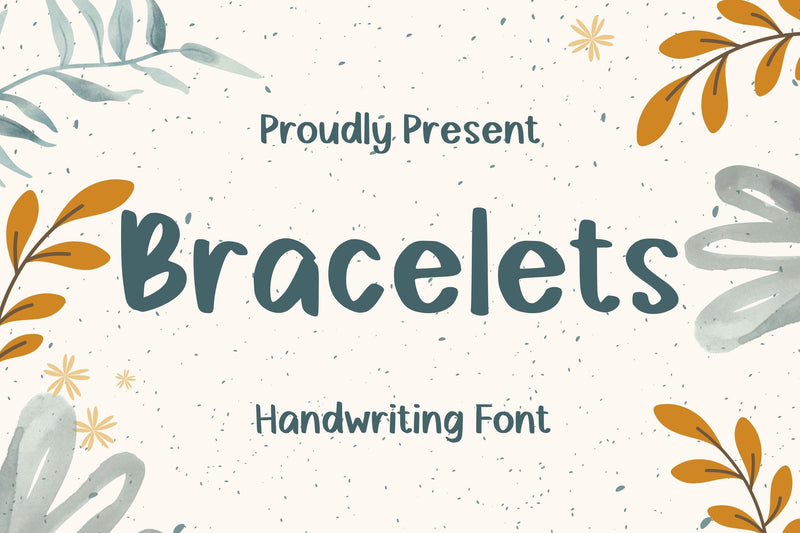
Bracelets Font
Braceletsis a smooth and friendly display font. Its casual and joyful style makes it appear wonderfully down to earth, readable and, ultimately, incredibly versatile.